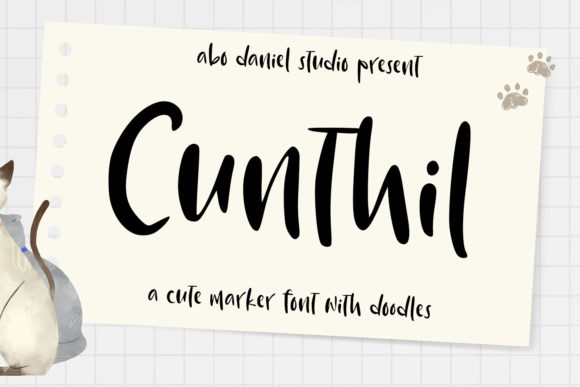
Embark on a typographic journey with Cunthil, the enchanting script font that spells magic into your designs. Crafted with meticulous artistry and an unwavering commitment to elegance, Cunthil is your ultimate companion for captivating creations, whether you're an Instagram virtuoso or a DIY enthusiast seeking to transform your ideas into tangible masterpieces.
Unleash the boundless creativity within you as Cunthil seamlessly blends the charm of calligraphy with the allure of modern script. Its graceful curves and intricate details dance across your designs, evoking a sense of timeless artistry. Each letter, a stroke of genius, harmonizes perfectly to elevate your projects to new heights of sophistication.
With Cunthil at your command, transform ordinary words into captivating expressions. Its versatility knows no bounds, adapting effortlessly to a symphony of creative endeavors. Whether you're weaving captivating tales on social media, crafting personalized invitations that leave a lasting impression, or adding a touch of elegance to your DIY projects, Cunthil will effortlessly elevate your creations.
Experience the joy of effortless creativity as Cunthil seamlessly integrates into your design software. Its user-friendliness will have you crafting stunning visuals in no time, allowing you to focus on unleashing your imagination. Cunthil is the key to unlocking your creative potential, turning your design dreams into tangible realities.